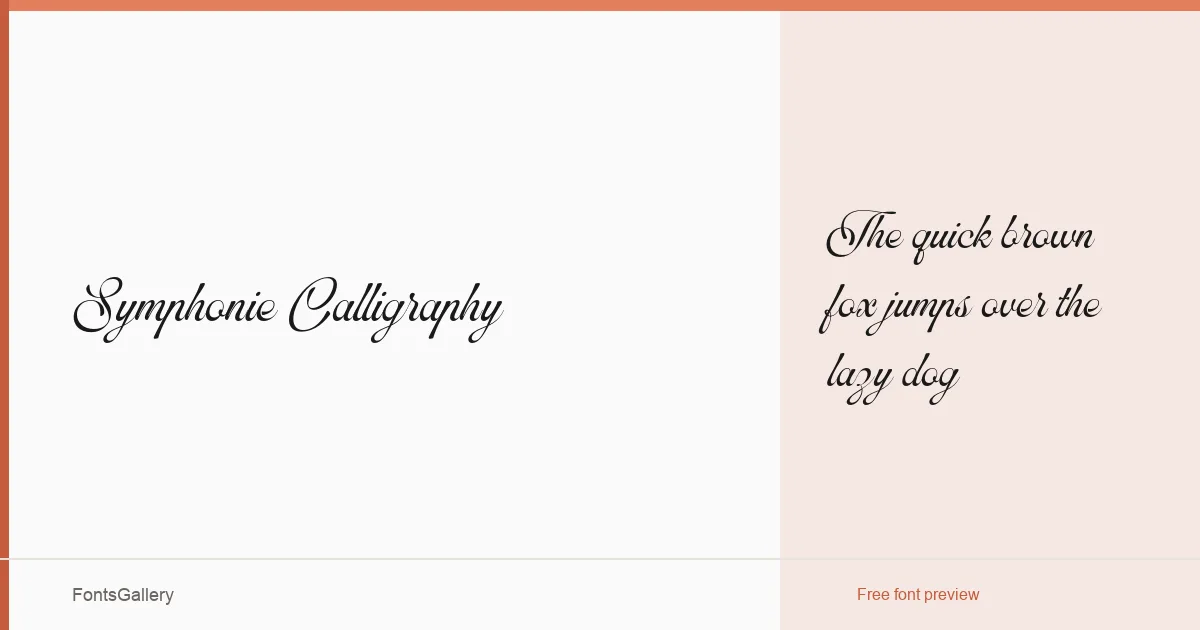
About Symphonie Calligraphy Font
Symphonie Calligraphy is an elegant script typeface crafted by Ratna Krismawati under the Krismagraph foundry. It exudes a sense of luxury and romance, making it a distinguished choice for projects that demand a refined, classic touch. With its flowing calligraphic style, this font brings a timeless sophistication to any design it graces.
Symphonie Calligraphy features graceful, fluid letterforms rooted in traditional calligraphic tradition, evoking an air of elegance and classic romance. Each character is designed with sweeping strokes and delicate curves that convey a luxurious, high-end aesthetic. The overall composition strikes a harmonious balance between ornate beauty and legible script styling.
This typeface is ideally suited for logos, wedding stationery, invitation cards, greeting cards, and certificates where an elevated, romantic atmosphere is desired. Its classic elegance also makes it a compelling choice for branding projects targeting luxury audiences. Symphonie Calligraphy pairs beautifully with Aresink for a cohesive script-forward design, or with Helvetica for a striking contrast between ornate and clean, modern letterforms.